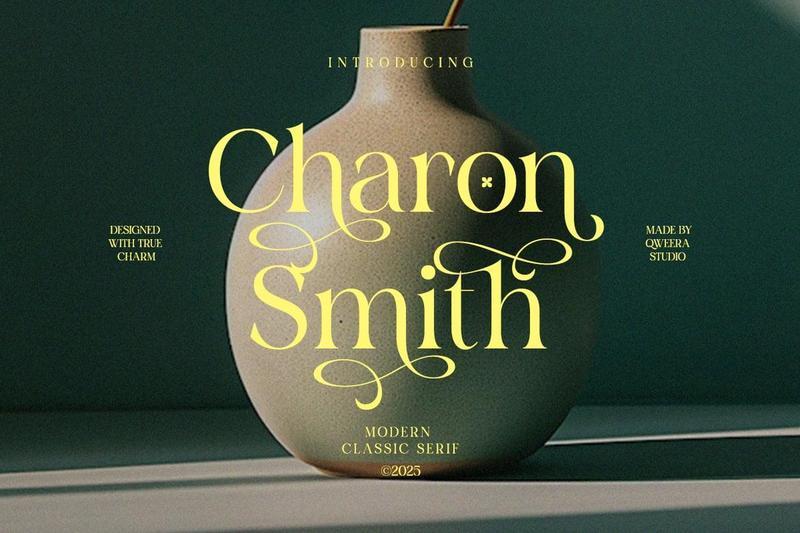
**Charon Smith** is a modern classic serif font crafted with timeless elegance and refined character.
Designed to balance traditional serif beauty with contemporary proportions, this typeface is ideal for luxury branding, editorial layouts, and name-based logos.
Its graceful curves and classic structure make Charon Smith a versatile choice for designers seeking sophistication without excess.
**Features**
– Regular & Italic
– Uppercase & lowercase
– Elegant alternates & ligatures
– Multilingual support
– Clean contrast serif structure
– Professional kerning
**Perfect For**
Luxury branding, editorial design, fashion identity, boutique logos, personal branding, book covers, magazine titles, and premium packaging.